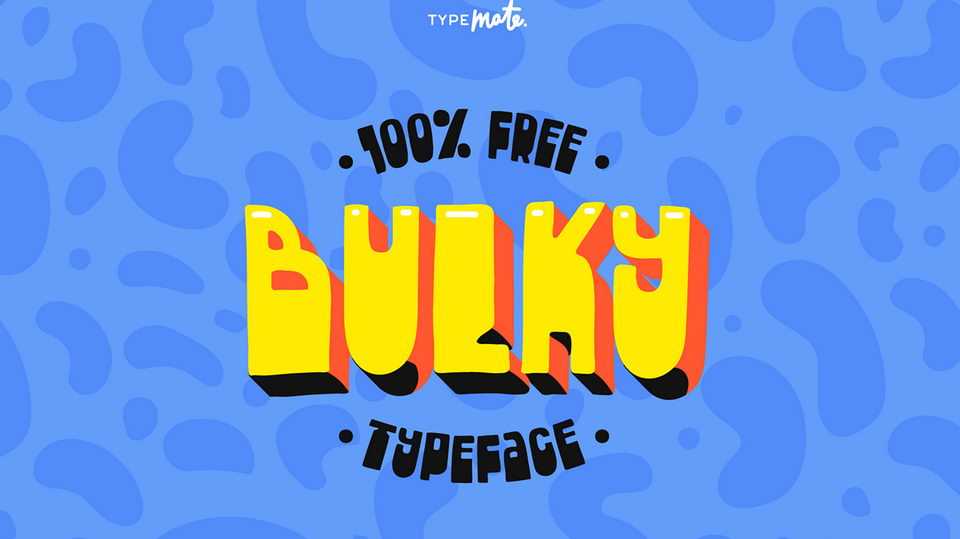
Download Bulky – a cheerful, hand-drawn grotesque font. Very friendly, with a huge contrast which also emphasized by alternative stylistic set!
Designer: Vova Egoshin